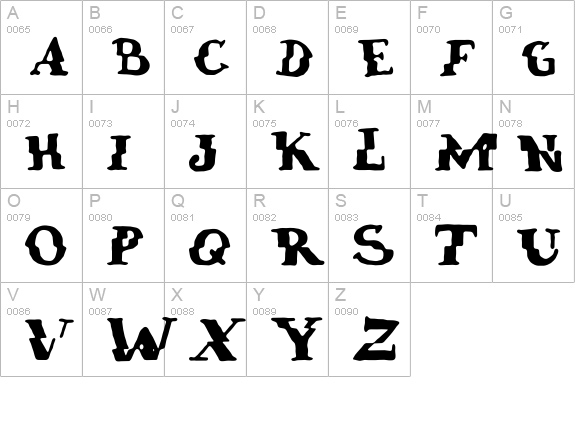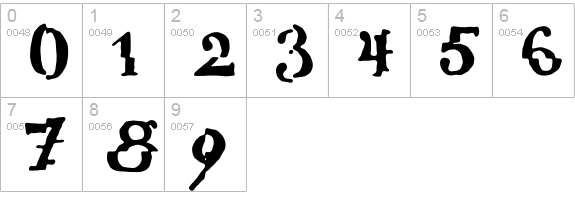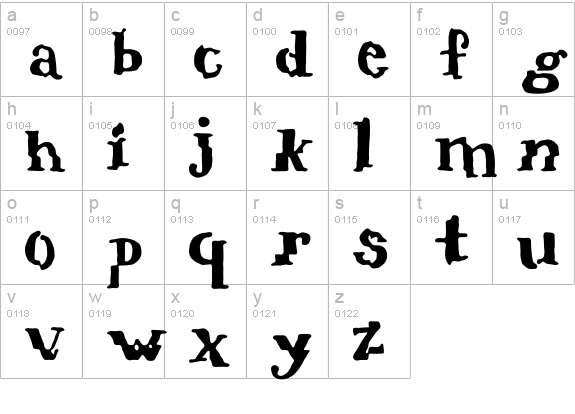
verrutscht Font Details
Verrutscht font is a stunning display font that effortlessly captures attention with its unique and captivating design. The name "Verrutscht" itself translates to "shifted" in German, perfectly reflecting the font's playful and slightly off-kilter appearance. This font is truly a work of art, with each letter carefully crafted to create a visually striking and distinctive look. The irregular shapes and slanted lines give Verrutscht a sense of movement and dynamism, making it perfect for designs that need a touch of whimsy and personality. What sets Verrutscht font apart is not just its eye-catching design, but also its versatility. It can be used for a variety of projects, from branding and packaging to posters and social media graphics. Whether you're designing a logo for a quirky start-up or creating a whimsical invitation, Verrutscht font is sure to elevate your design and make it stand out from the crowd. But the best part? Verrutscht font is completely free! Yes, you read that right. This incredible font is freely available to download at FontsMarket.com. So, you can bring a touch of creativity and uniqueness to your projects without breaking the bank. Don't miss out on the opportunity to use Verrutscht font in your designs. Download it now and let your imagination run wild with this free and captivating font.